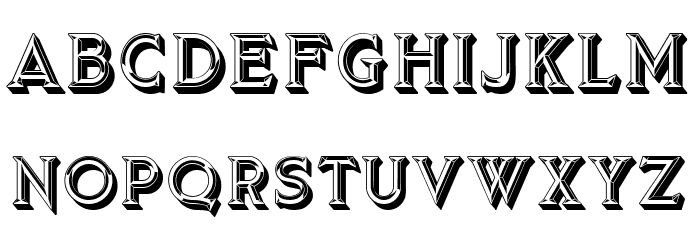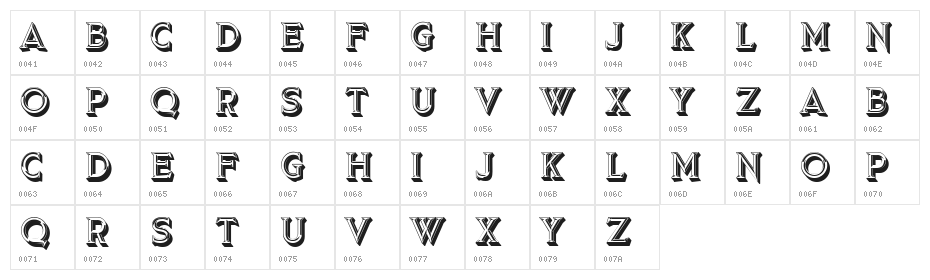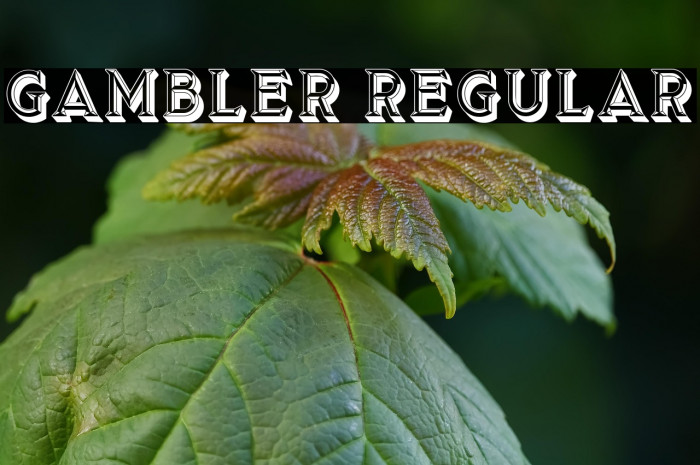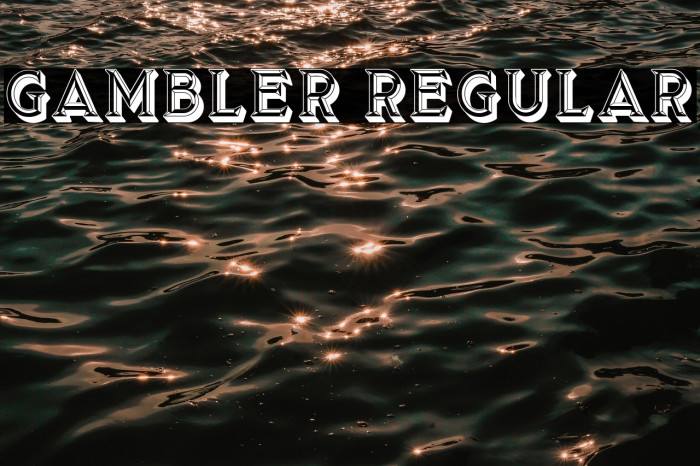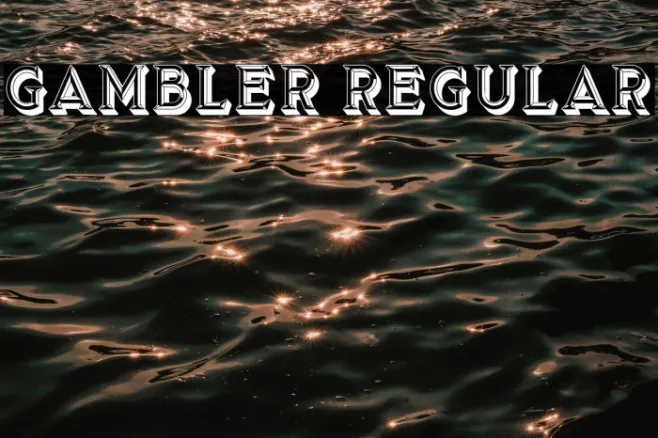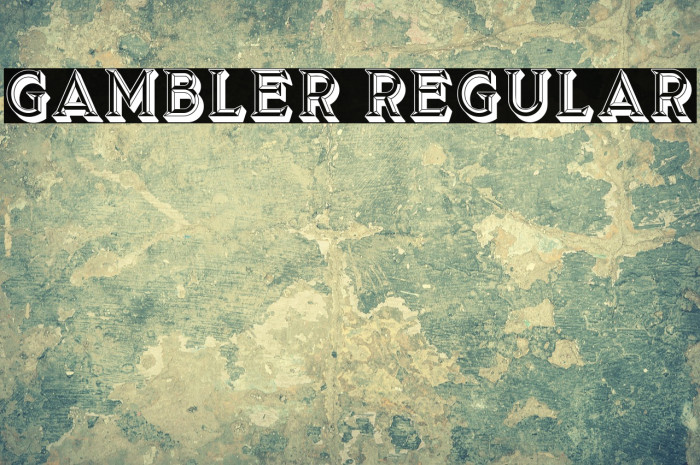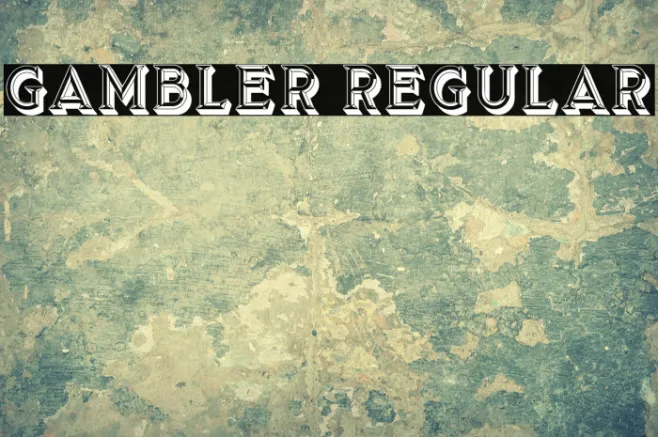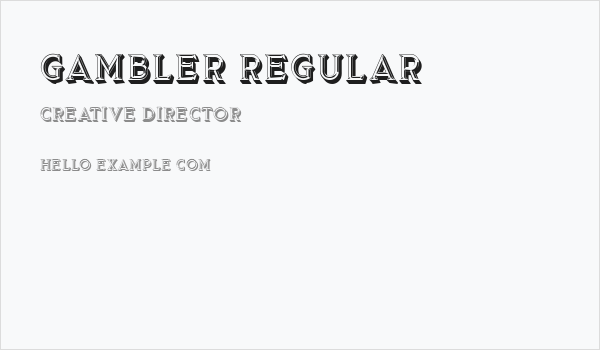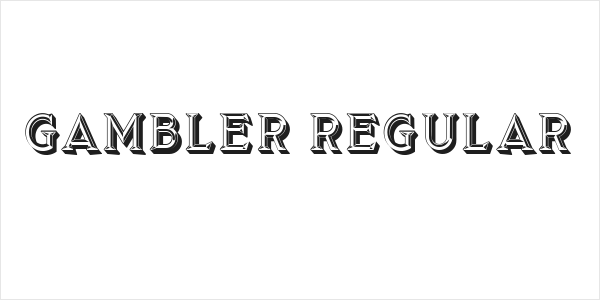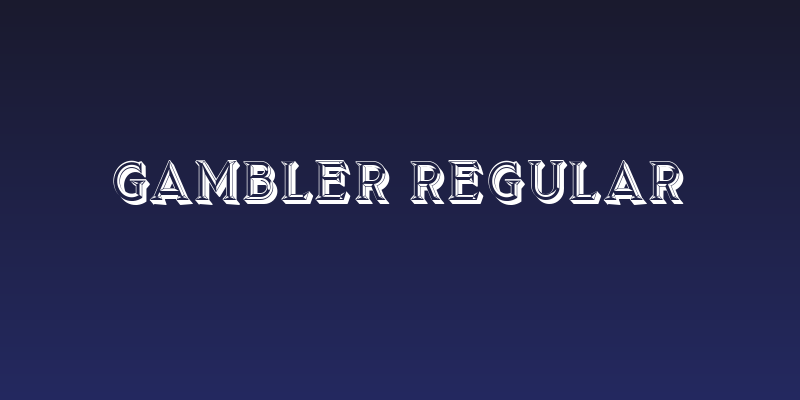
Gambler Regular Font
Gambler Regular Description
This font features a bold, decorative style with a three-dimensional effect that gives each letter a shadowed appearance. The uppercase letters are designed with strong, angular lines and a distinct geometric influence, creating a sense of depth and dimension. The font's intricate detailing and bold presence make it ideal for eye-catching designs. The characters are evenly spaced, ensuring readability while maintaining a dramatic visual impact. The overall style is reminiscent of vintage signage, adding a touch of nostalgia and flair to any project.